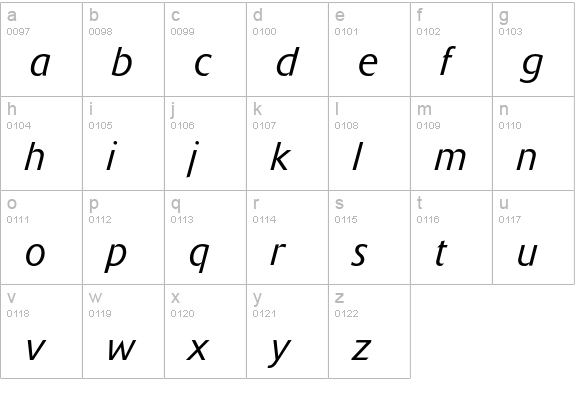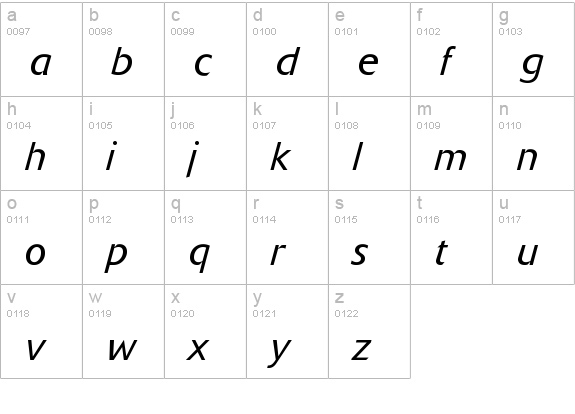
Delta Jaeger BQ Light Italic is a refined, elegant, italic variant in the Delta typeface family \xE2\x80\x94 well suited to elegant body text, refined sub-headings, and luxury branding.
Delta Jaeger BQ Light Italic is a modern and stylish font that exudes elegance and sophistication. With its sleek and slender letterforms, this typeface is perfect for adding a touch of sophistication to any design project. The gentle slant of the italicized characters adds a sense of dynamism and movement to the text, making it ideal for use in headings, quotes, and other attention-grabbing elements. What's even better is that Delta Jaeger BQ Light Italic is available for free download at FontsMarket.com. Whether you're working on a personal project or a professional design, this font is sure to elevate your work with its refined aesthetic and versatility. Don't miss out on the opportunity to enhance your designs with this exquisite typeface - download Delta Jaeger BQ Light Italic today and elevate your typography game!